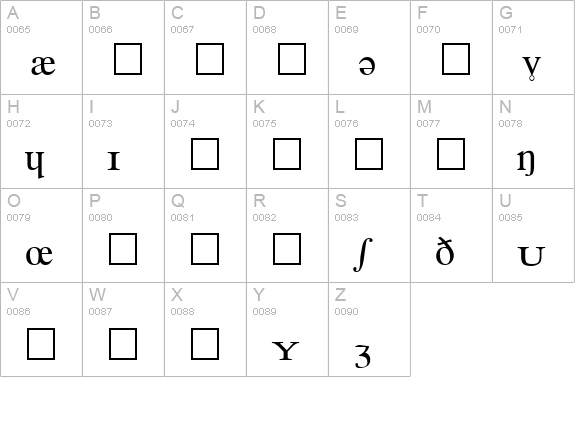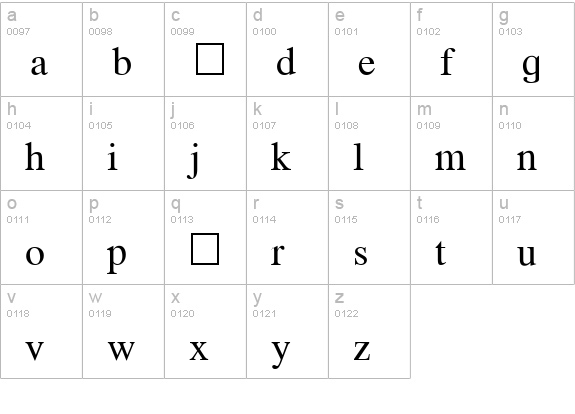
Phonetic Regular Font Details
Phonetic Regular is the standard, neutral variant in the Phonetic typeface family \xE2\x80\x94 well suited to general body text, paragraphs, and standard typographic work.
Introducing Phonetic Regular font, a captivating typeface that effortlessly combines elegance and modernity. This versatile font is perfect for adding a touch of sophistication to any design project, whether it's a logo, website, or printed material. Phonetic Regular boasts clean lines and well-balanced proportions, making it highly readable in both small and large sizes. Its timeless appeal is enhanced by subtle details that add a unique charm to each letterform. The font carries a sense of refinement and professionalism, making it ideal for corporate branding or formal invitations. One of the standout features of Phonetic Regular is its impeccable phonetic clarity. Each character is meticulously crafted to ensure seamless legibility, even when dealing with complex words or technical terminology. This attention to detail sets Phonetic Regular apart from other fonts, making it a reliable choice for projects that require clear communication. But perhaps the best part is that Phonetic Regular is available free of charge. You can easily download this font at FontsMarket.com, a trusted source for high-quality fonts. This means you can enjoy all the benefits of Phonetic Regular without any financial burden. It's a great opportunity to enhance your designs without compromising on quality. Whether you're a professional designer or a hobbyist, Phonetic Regular is a must-have addition to your font library. Its versatility, elegance, and free availability make it a go-to choice for a wide range of design projects. So why wait? Download Phonetic Regular today and elevate your creative endeavors to new heights.